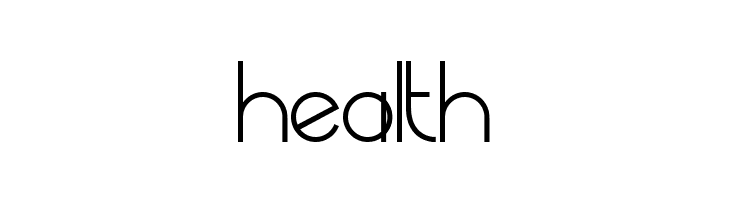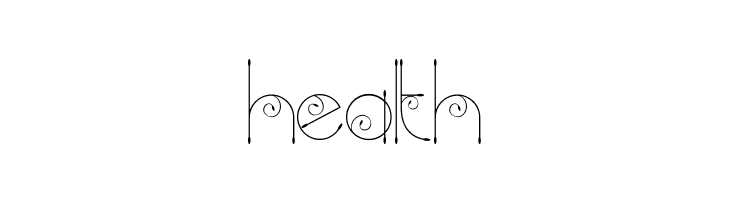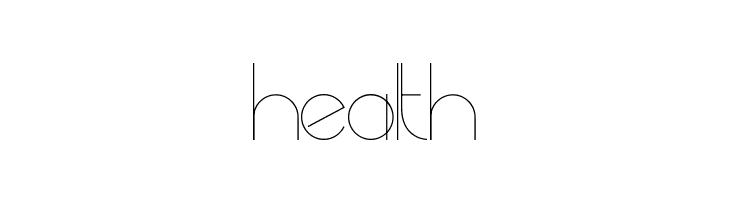
A decorative font with intricate swirls and vine-like embellishments.
A modern, minimalist font with thin, elongated strokes and geometric structure.
A modern, geometric font with clean lines and consistent stroke widths.
A modern, geometric outline font with clean, continuous lines.
A modern, geometric font with outlined characters and a linear style.
A decorative font with elegant curves and intricate details, perfect for creative projects.
An ornate and decorative font with intricate floral embellishments.
An elegant, cursive font with intricate loops and swirls.
A bold, high-contrast font with geometric and modern elements.